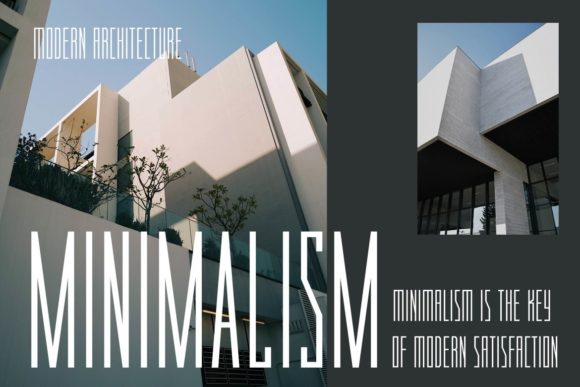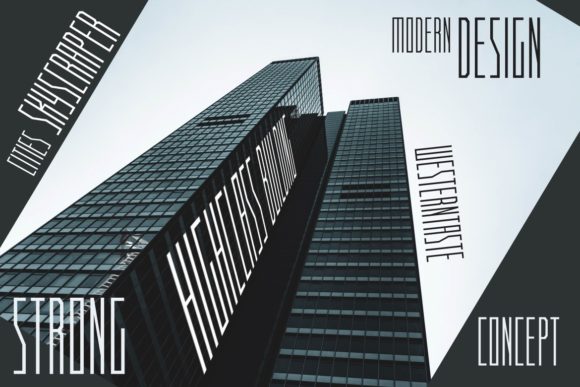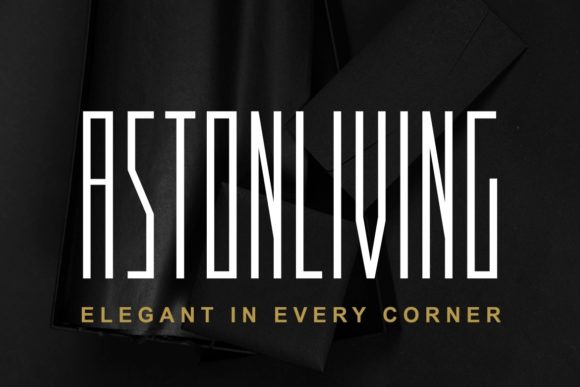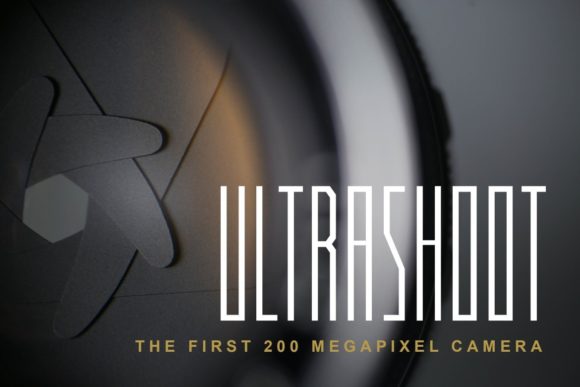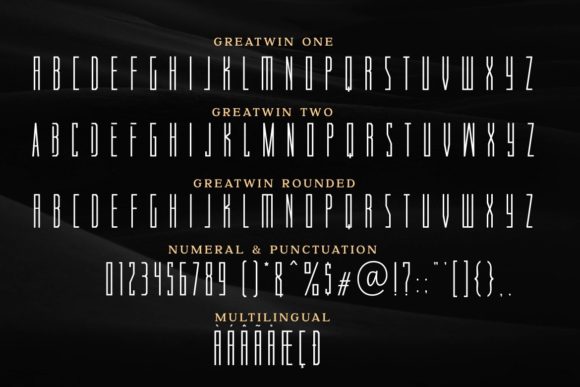
Introducing Greatwin Font: The Ultimate Sans Serif Addition to Your Library
Are you tired of using the same old fonts in your designs? Look no further than Greatwin Font, a cool, robotic, and neat sans serif font that’s sure to elevate any creation. With its unique blend of modernity and sophistication, Greatwin is an incredible asset to any font library, regardless of the topic or project.
What Makes Greatwin Font Stand Out?
Greatwin Font boasts a distinctive robotic aesthetic that’s both futuristic and sleek. Its sans serif design ensures that your text remains clean and legible, even at smaller font sizes. The font’s neat and organized structure makes it perfect for a wide range of applications, from digital designs to print materials.
Key Features of Greatwin Font
- Cool and Modern Design: Greatwin Font features a unique and contemporary design that’s sure to grab attention.
- Robotic Aesthetic: The font’s robotic style adds a touch of futurism to any design.
- Neat and Organized Structure: Greatwin’s sans serif design ensures that your text remains clean and legible.
- High Versatility: This font is suitable for a wide range of projects, from digital designs to print materials.
Benefits of Using Greatwin Font
So, why should you choose Greatwin Font for your next project? Here are just a few benefits of using this incredible font:
- Elevate Your Designs: Greatwin Font has the potential to take your designs to the next level, adding a touch of sophistication and modernity.
- Improve Legibility: The font’s clean and sans serif design ensures that your text remains easy to read, even at smaller font sizes.
- Increase Versatility: With Greatwin Font, you can create a wide range of designs, from futuristic and high-tech to minimalist and modern.
- Stand Out from the Crowd: This unique font is sure to help your designs stand out from the crowd, grabbing attention and making a lasting impression.
How to Use Greatwin Font in Your Designs
Using Greatwin Font in your designs is easy. Here are a few tips to get you started:
- Pair with Other Fonts: Greatwin Font pairs well with other sans serif fonts, creating a cohesive and modern look.
- Experiment with Font Sizes: The font’s clean design ensures that it remains legible at a wide range of font sizes.
- Use in Digital Designs: Greatwin Font is perfect for digital designs, including website headers, social media graphics, and more.
- Use in Print Materials: The font’s neat and organized structure makes it suitable for print materials, including brochures, flyers, and more.
In conclusion, Greatwin Font is an incredible addition to any font library. Its unique blend of modernity and sophistication makes it perfect for a wide range of projects, from digital designs to print materials. With its cool, robotic, and neat sans serif design, Greatwin Font is sure to elevate any creation and help you stand out from the crowd.